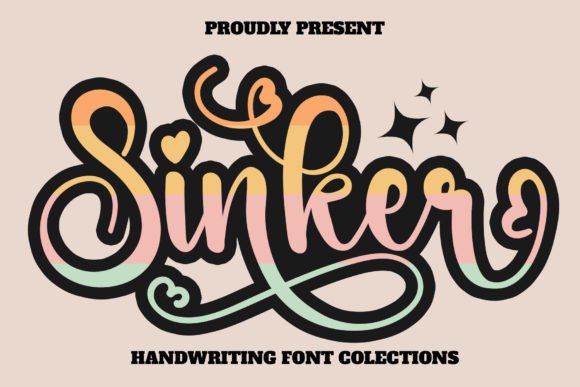
Enter the realm of Sinker Font, the enchanting script font that exudes elegance and playfulness. A creation of YanStudio, this font is adorned with a touch of whimsy that is sure to captivate your imagination and leave a lasting impression.
With its graceful curves and lively strokes, Sinker Font is the perfect choice for projects that demand an artistic flair. Let your creativity bloom as you design greeting cards that radiate warmth and charm, or craft headlines that dance with energy and grace. Elevate your branding and packaging designs with a touch of sophistication, and watch as your products stand out from the crowd.
Whether you're a seasoned designer or just starting to explore the world of typography, Sinker Font is the perfect companion for your creative journey. Its versatility knows no bounds, making it the ideal choice for a wide array of projects. Unleash your inner artist and create stunning wedding invitations, social media posts, logos, posters, and so much more.
Sinker Font's PUA encoding is the key to unlocking a treasure trove of glyphs and ligatures, providing you with endless possibilities for customization. Explore a world of intricate embellishments and stunning combinations that will add a touch of magic to your designs.
Dive into the depths of Sinker Font's charm and let your creativity flourish. Experience the joy of creating designs that resonate with your audience, leaving them captivated and inspired. Make a statement with every project, and let Sinker Font be your trusted companion on this extraordinary journey.